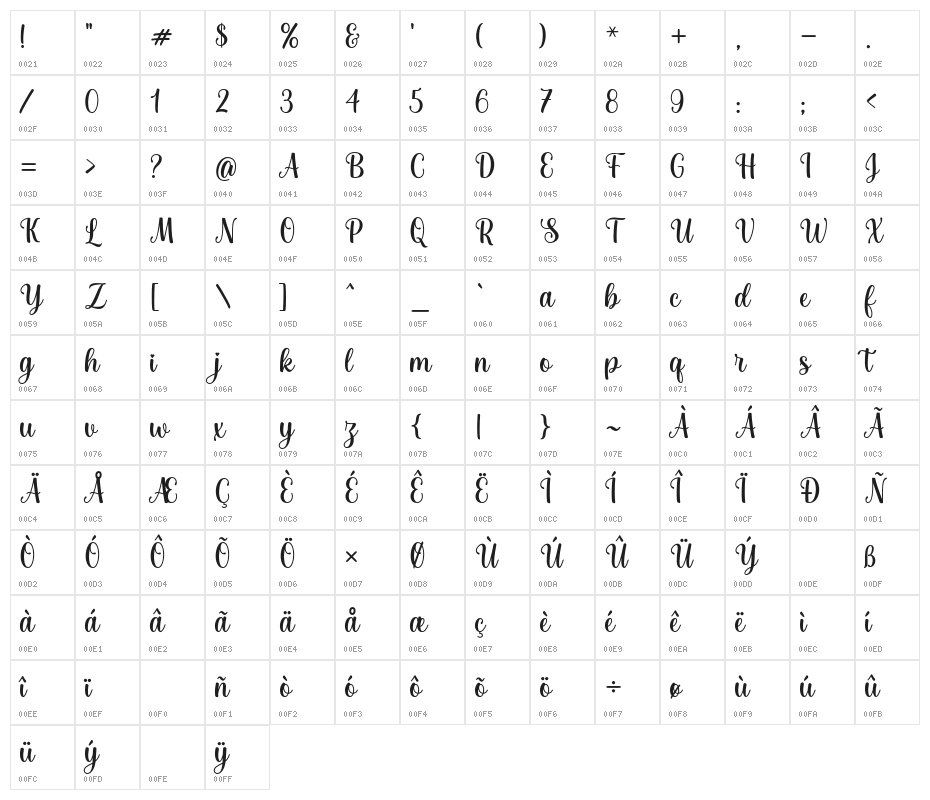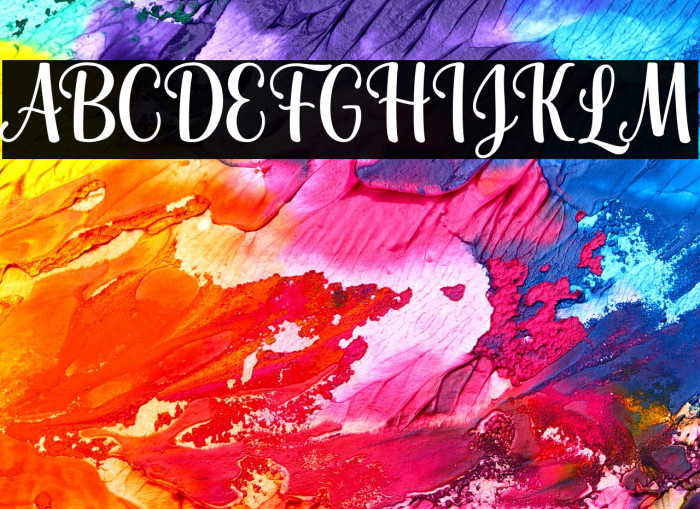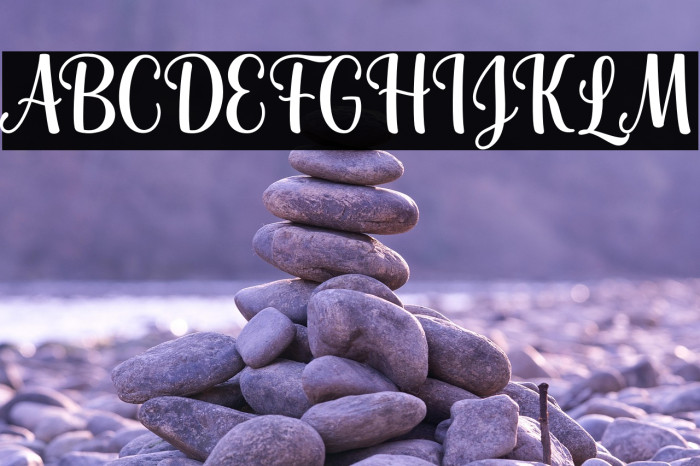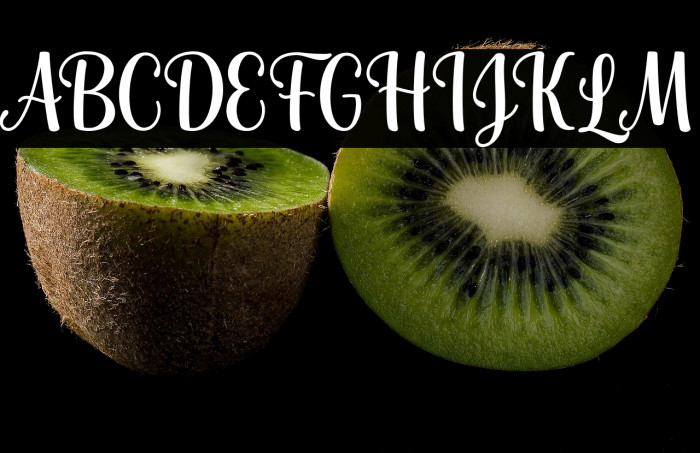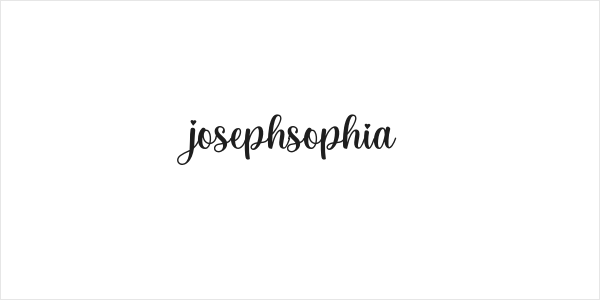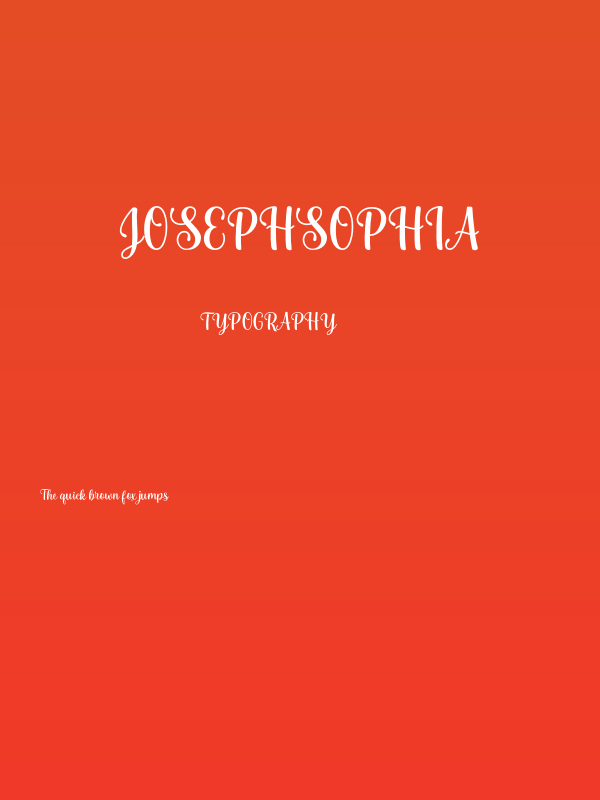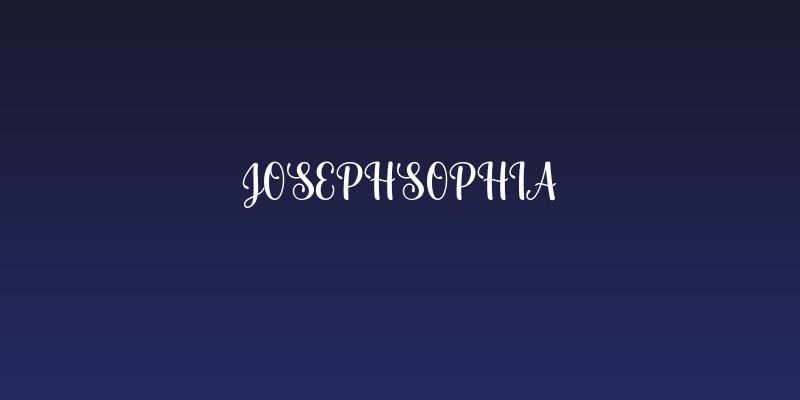
josephsophia Font
josephsophia Description
This font features a flowing, cursive style with elegant loops and swashes, giving it a sophisticated and artistic appearance. The uppercase letters are bold and prominent, while the lowercase letters maintain a consistent flow, enhancing readability. The numbers and special characters are designed to complement the overall script style, making them suitable for decorative purposes. The font's design is both playful and refined, making it versatile for various creative applications. Its smooth curves and balanced proportions contribute to its aesthetic appeal, making it ideal for projects that require a touch of elegance and flair.